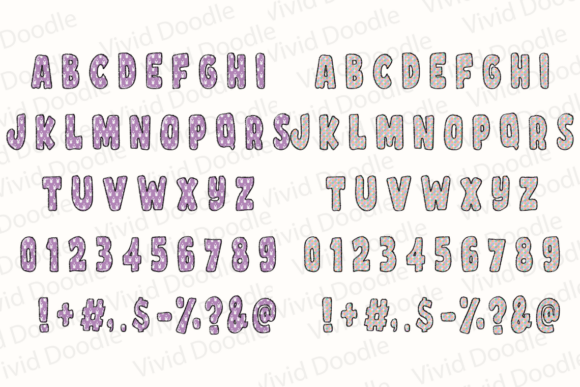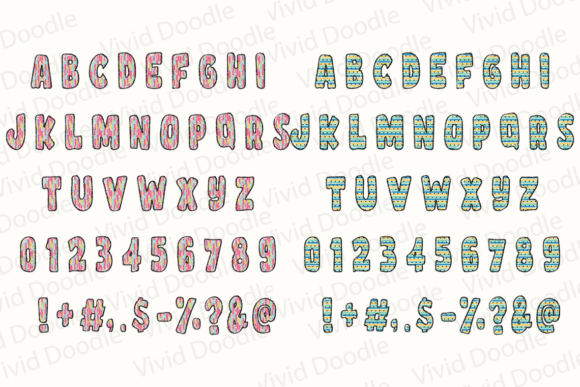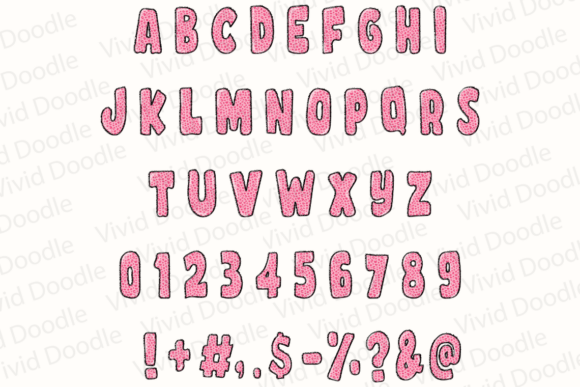
Introduction to Cute Bunny Easter Font
Do you remember the excitement of planning Easter crafts and decorations as a child? The joy of searching for the perfect spring-themed design elements, the thrill of creating something truly unique and special? As a designer, you’re likely no stranger to this creative rush, and it’s exactly what the Cute Bunny Easter Font is designed to evoke.
With its playful, rounded letterforms and charming bunny-inspired touch, this font is the perfect addition to any Easter-themed project. Whether you’re designing for kids, party printables, or social media graphics, the Cute Bunny Easter Font brings a warm and cheerful vibe to your work. As a valuable design resource, it’s a must-have for anyone looking to add a high-quality, whimsical touch to their creative projects.
Key Features of Cute Bunny Easter Font
- Unique and playful design perfect for creative projects, especially those related to Easter celebrations.
- High-quality, intricately designed characters with transparent backgrounds for seamless integration into various design elements.
- Includes uppercase and lowercase letters, numbers, and special characters, providing a comprehensive character set for various design applications.
- Perfect for crafting Easter-themed invitations, greeting cards, and other creative projects that require a touch of whimsy and charm.
Honest Review: Cute Bunny Easter Font
I recently had the chance to work with the Cute Bunny Easter Font for a creative project, and I’m excited to share my honest review. Overall, I was impressed with the quality and versatility of this design resource.
What works well: ✨ The Cute Bunny Easter Font is incredibly easy to use, even for those without extensive design experience. The high-quality vector graphics ensure crisp and clear results, whether you’re printing or using them digitally. I also appreciated the transparent background option, which gave me the flexibility to layer the font over various backgrounds.
Some limitations: ⚠️ While the Cute Bunny Easter Font is a great resource, it’s specifically designed for Easter-themed projects. If you’re looking for a more general-purpose font, you might find it limiting. Additionally, the font is a free download, which means it’s not without its quirks. I experienced some minor formatting issues when using the font in a specific design software.
Overall, I’m happy with my experience using the Cute Bunny Easter Font. It’s a great resource for designers looking to add a touch of whimsy to their Easter-themed projects. Just be aware of its limitations and potential quirks.
- Easy to use, even for designers without extensive experience
- High-quality vector graphics ensure crisp and clear results
- Transparent background option for added flexibility
- Specifically designed for Easter-themed projects, may not be suitable for general use
Tips for Getting the Most Out of Cute Bunny Easter Font
Use the font on a transparent background to create a high-quality design. Experiment with different font sizes and colors to create a visually appealing effect. You can also use the font in combination with other design elements to create a unique and creative project.
Common Use Cases for Cute Bunny Easter Font
The Cute Bunny Easter Font is perfect for Easter-themed designs, such as invitations, greeting cards, and social media posts. You can also use it in other creative projects, such as blog posts, newsletters, and marketing materials.